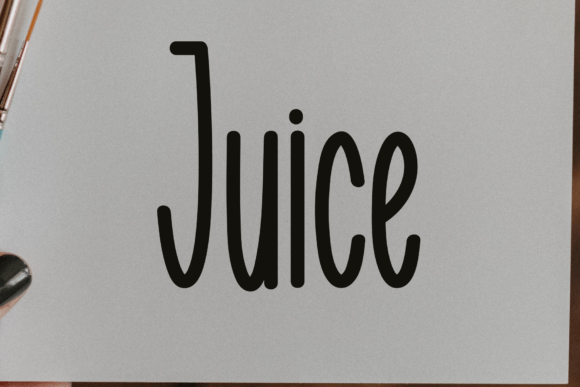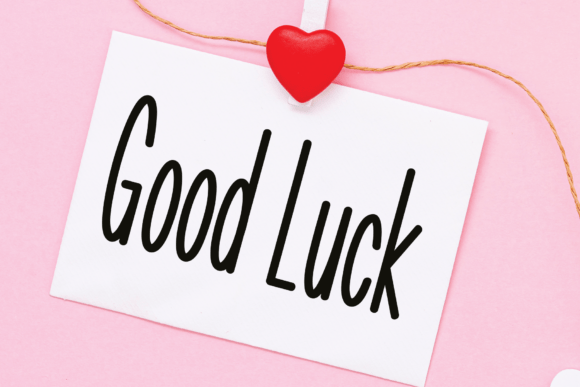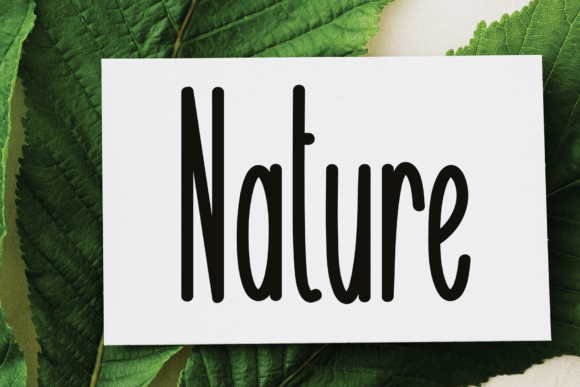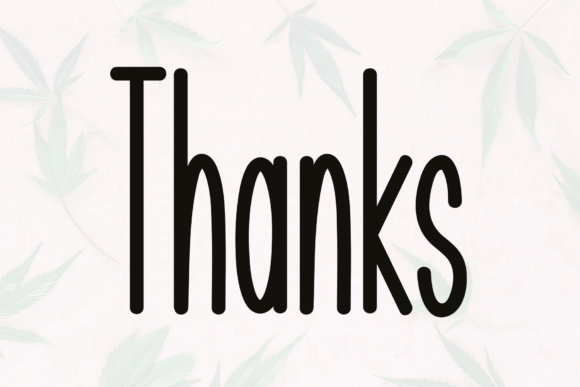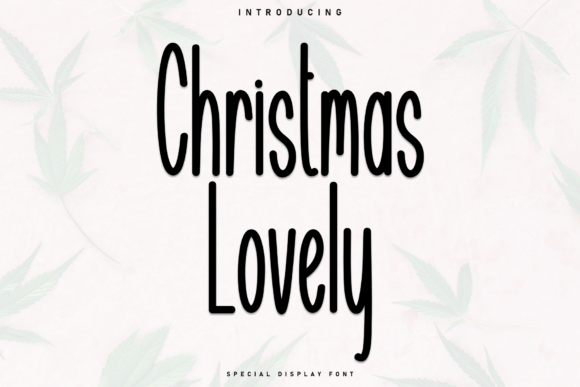
Introducing Christmas Lovely Font: A Sweet and Beautiful Handwritten Delight
Are you looking for a font that captures the essence of the holiday season? Look no further than Christmas Lovely Font, a sweet and beautiful handwritten font that is sure to add a cozy accent to any design project. Featuring characters that dance along the baseline, this font is perfect for designers and crafters who want to create festive and charming designs.
What Makes Christmas Lovely Font Special?
Christmas Lovely Font is a unique and elegant handwritten font that boasts a range of characteristics that make it perfect for holiday designs. Here are just a few of the features that set it apart:
- Dancing Characters: The characters in Christmas Lovely Font are designed to dance along the baseline, giving your designs a playful and whimsical feel.
- Handwritten Charm: This font features a beautiful, handwritten aesthetic that is perfect for creating festive and charming designs.
- Cozy Accent: Christmas Lovely Font adds a cozy accent to any design project, making it perfect for holiday-themed designs, such as Christmas cards, invitations, and more.
Christmas Lovely Font is a versatile font that is perfect for a range of design projects, including:
- Holiday Cards: Create beautiful and festive holiday cards that are sure to impress your friends and family.
- Invitations: Design charming and elegant invitations for holiday parties, weddings, and other special events.
- DIY Projects: Add a personal touch to your DIY projects, such as handmade gifts, decorations, and more.
- Digital Designs: Use Christmas Lovely Font to create stunning digital designs, such as social media graphics, blog posts, and more.
Tips for Using Christmas Lovely Font
Here are a few tips for getting the most out of Christmas Lovely Font:
- Pair with Other Fonts: Pair Christmas Lovely Font with other fonts to create a unique and eye-catching design.
- Use for Headings and Titles: Use Christmas Lovely Font for headings and titles to add a touch of elegance and sophistication.
Christmas Lovely Font is a beautiful and charming handwritten font that is perfect for designers and crafters who want to create festive and charming designs. With its dancing characters, handwritten charm, and cozy accent, this font is sure to add a touch of magic to any design project. Whether you’re creating holiday cards, invitations, DIY projects, or digital designs, Christmas Lovely Font is the perfect choice.